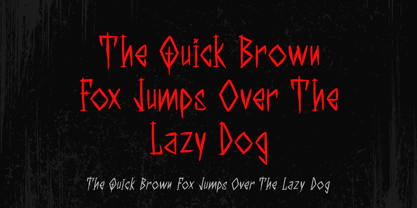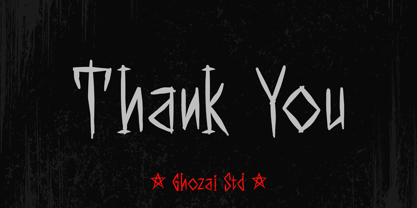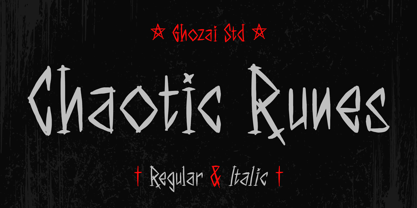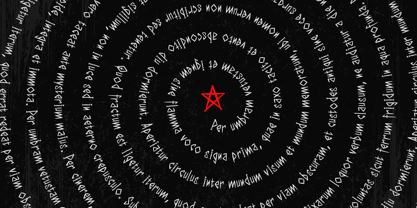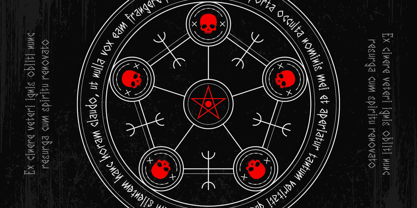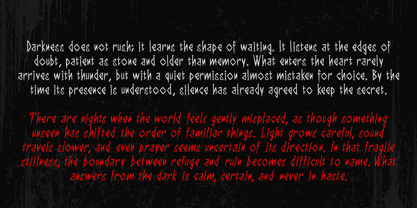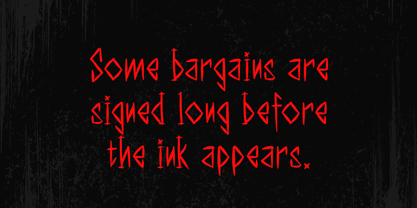
Chaotic Runes
by Ghozai Studio
The Chaotic Runes Font Family was designed by Manzur Ghozaali and published by Ghozai Studio. Chaotic Runes contains 2 styles and family package options. More about this family
Chaotic Runes is a font inspired by classic runes and handwritten styles, available in both regular and italic variations. This typeface features multilingual glyph support, ensuring versatility across different languages and design needs. Its playful handwriting style and fluid design make it perfect for a variety of applications, including metal band merchandise, horror film posters, adventure games, and other creative projects. The font combines dynamic handwritten strokes, creating a striking contrast that gives it a modern and energetic appearance.
Designers: Manzur Ghozaali
Foundry: Ghozai Studio